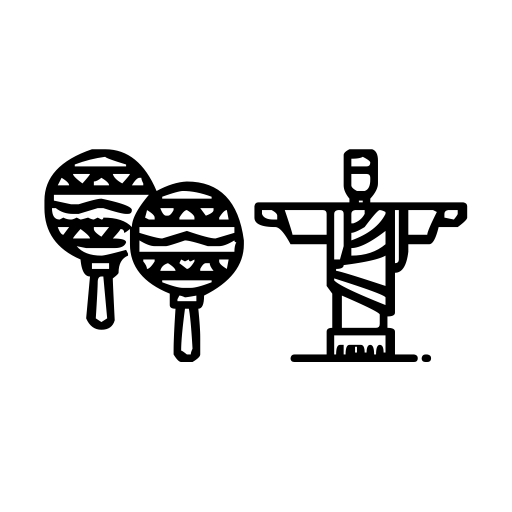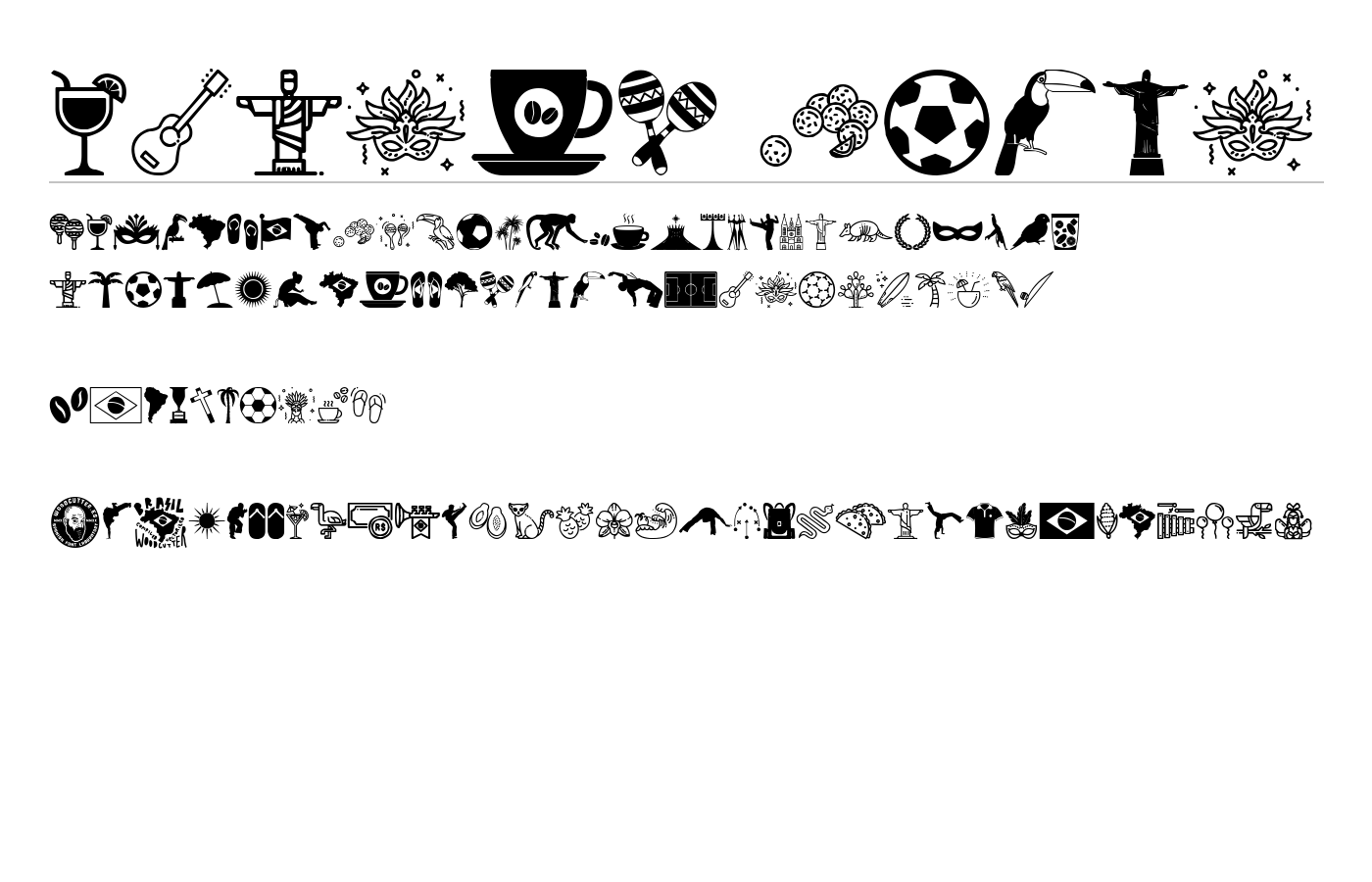
Brasil Icons Font is a playful and visually rich icon font that celebrates the vibrant culture, landmarks, and lifestyle of Brazil. Its bold, simplified black silhouettes make it perfect for adding a fun, lively touch to travel-themed designs, branding, and digital projects that want to evoke Brazilian spirit and energy with clarity and charm.
Brasil Icons Font
About Brasil Icons Font